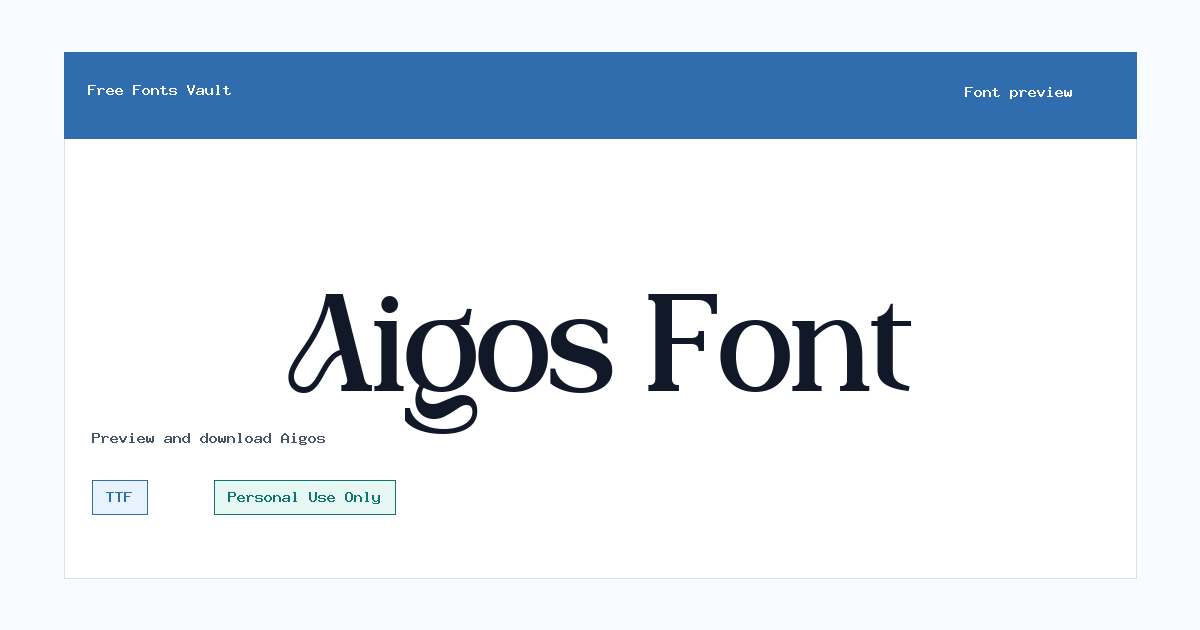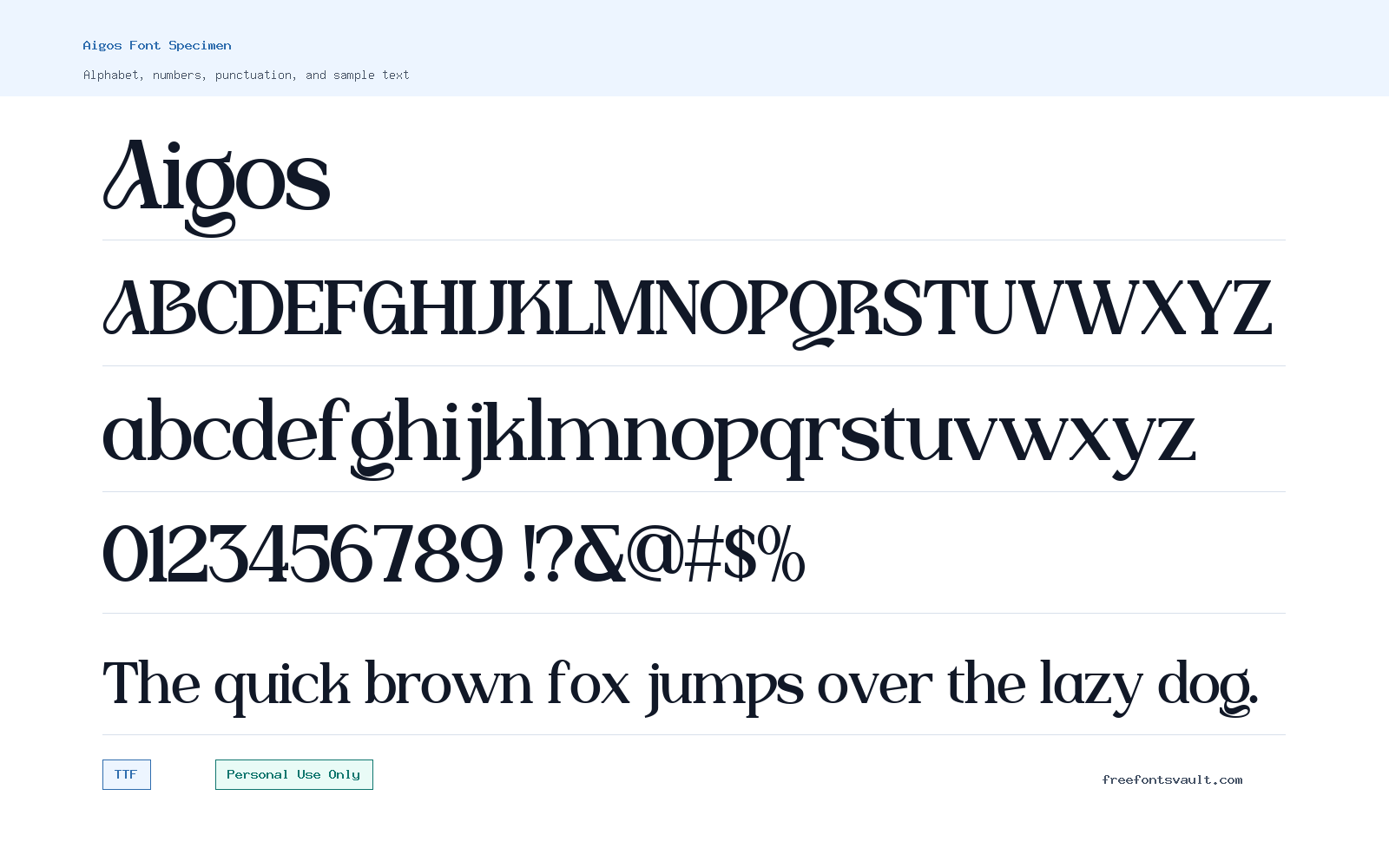
Aigos
• Designer Pekotype
Aigos is a serif font by Pekotype with a Regular TTF style for personal projects. It is best approached as a display-friendly typeface to test in headlines, names, short quotes, and preview mockups before download.
About Aigos Font
Aigos has the kind of serif structure that works best when the letters have enough space to show their shape. Since the family currently has a single regular style, it is most useful for focused typography rather than large systems with many weights. Try it first in a title, cover line, logo draft, invitation heading, poster phrase, or social graphic where one clear style is enough. For long paragraphs, test the preview carefully at the size you plan to use, because decorative or high-character serif fonts can lose comfort when they are pushed into small body text.
For cleaner results, pair Aigos with a plain sans serif or a quiet text serif that does not compete with it. Let Aigos handle the main wordmark, heading, or accent line, then use the supporting font for descriptions, menus, dates, captions, or body copy. This keeps the design readable and avoids making every line fight for attention. Before using it in a layout, preview uppercase, lowercase, numbers, punctuation, and any accented characters you need. Also check spacing in words with narrow and wide letters, because display fonts can behave very differently once they are placed in real names or phrases.
• Serif design suited to short display text and personal design previews
• Personal poster titles, quote graphics, invitations, and cover-style headings
• Logo drafts, name treatments, mood boards, and social media design experiments
Use Aigos where the type can stay large enough to read comfortably. Test your exact words in the preview, especially punctuation, numbers, and any non-English characters. For layouts with longer text, pair it with a simpler companion font and keep Aigos for the main visual accent.